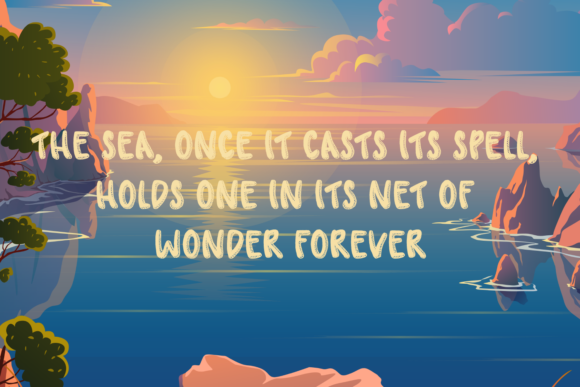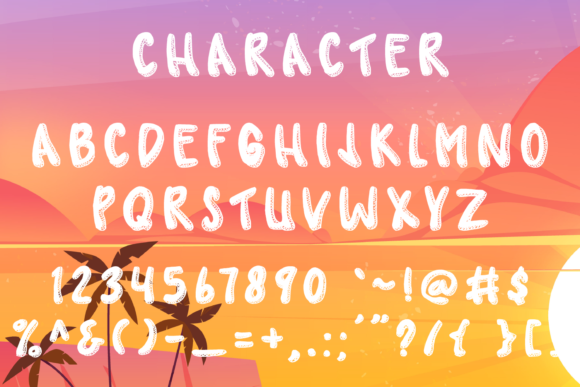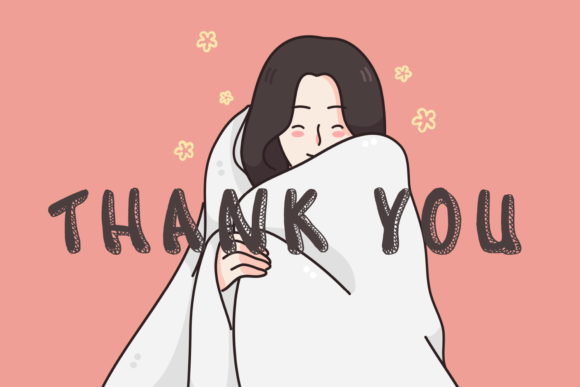
Introduction to Only Morning Font
Have you ever found yourself in the midst of a creative project, staring at a blank page, and desperately searching for the perfect font to bring your vision to life? This is where the magic happens – the moment when a new design resource can elevate your entire project. For designers, discovering a high-quality font can be a game-changer, and that’s exactly what we’re excited to introduce you to: the Only Morning Font.
This beautiful, intricate display font is more than just a pretty face; it’s a versatile design tool that can be used for a wide range of applications, from logos and wedding invitations to t-shirts and signage. With a transparent background and a fresh, modern feel, the Only Morning Font is perfect for any creative project that requires a touch of elegance and sophistication.
Key Features of Only Morning Font
- High-quality design resource perfect for creative projects and personal use
- Transparent background, making it ideal for use on images and designs with complex backgrounds
- Perfect for designers and artists working on morning-themed projects, with a unique and modern aesthetic
- Includes a range of glyphs and characters, with a consistent and cohesive design throughout
- Designed with a high resolution of 300 DPI, ensuring crisp and clear text even at large sizes
Honest Review: Only Morning Font
I recently stumbled upon the Only Morning Font and was excited to give it a try for my latest creative project. This font has been a game-changer for me, offering a unique and elegant design resource that’s perfect for any high-quality project.
One of the standout features of the Only Morning Font is its transparent background, making it incredibly easy to use and customize for any design need. The font is also completely free to download, which is a huge bonus for designers on a budget.
Here are some of the things that work well with the Only Morning Font:
- Unique and elegant design aesthetic ✨
- High-quality font that’s perfect for creative projects ✨
- Transparent background for easy customization ✨
- Free to download, making it a great resource for designers ✨
However, there are a few limitations to be aware of:
- Limited character set, which may not be ideal for long-form writing ⚠️
- Not as versatile as some other fonts on the market ⚠️
Overall, I’m really impressed with the Only Morning Font. It’s a great addition to any designer’s toolkit and is perfect for adding a touch of elegance to any creative project. With its unique design aesthetic and transparent background, it’s a must-try for any designer looking for a high-quality font resource.
Only Morning Font
Only Morning Font is a high-quality, free design resource perfect for creative projects. This font features a transparent background, making it easy to customize and integrate into your design.
Tips for Getting the Most Out of Only Morning Font
To get the most out of Only Morning Font, experiment with different font sizes, colors, and styles to create a unique and eye-catching design. You can also combine it with other design elements, such as images and graphics, to create a visually appealing project.
Only Morning Font is perfect for a variety of creative projects, including:
Website headers and footers
Social media graphics
Brochures and flyers
Business cards and resumes